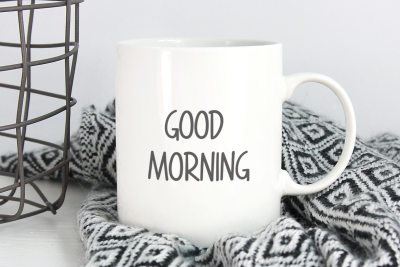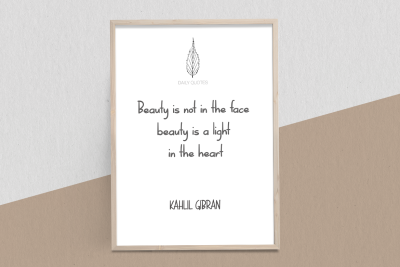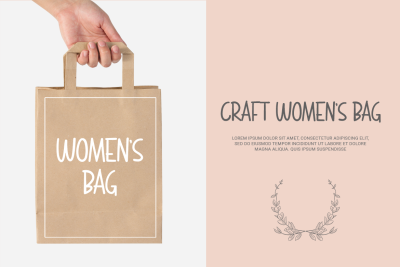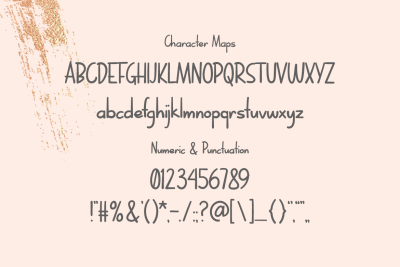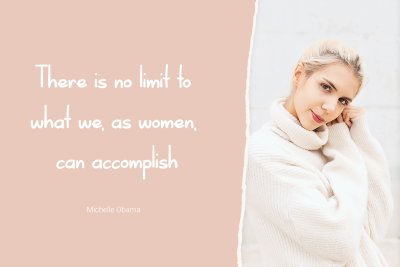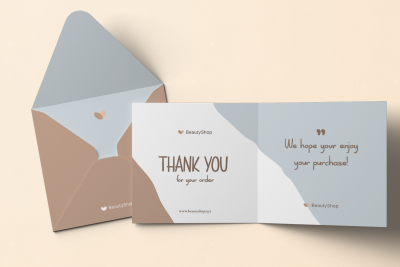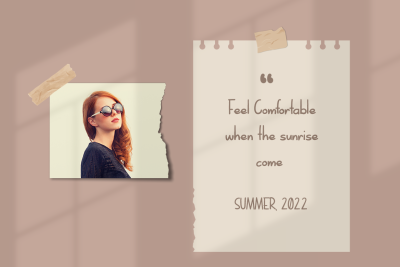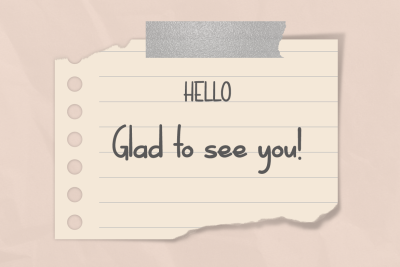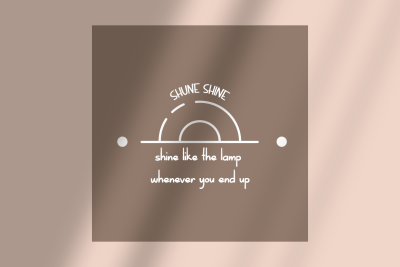
Handwriting Font School Note is a fun, playful, and casual handwritten font. It brings a natural and friendly feel to any design. Inspired by the neat yet informal look of school notes, this font captures nostalgia while also maintaining a modern and stylish appeal. With slightly irregular strokes and handwritten texture, School Note exudes warmth and personality. Therefore, it’s an excellent choice for those seeking a relaxed and approachable aesthetic.
The rounded edges and organic letterforms create a handwritten effect that mimics natural pen strokes. Whether designing for educational materials, scrapbooking, or crafting projects, this font adds a personal and handmade touch. Moreover, its legibility ensures it works well in digital and print formats, making it a versatile addition to any font collection. If you want to infuse authenticity and charm into your projects, then Handwriting Font School Note is a great option.
Handwriting Font School Note Suitable For
Handwriting Font School Note is an excellent choice for creatives, educators, and designers who want a handwritten touch in their work. This font is particularly well-suited for:
- Teachers and Educators โ Ideal for worksheets, lesson plans, and classroom materials to create an engaging and student-friendly look.
- Students and Note-Takers โ Perfect for personalized study notes, planners, and school projects with a fun handwritten aesthetic.
- Scrapbookers and DIY Crafters โ Great for journaling, card-making, and adding a handmade touch to crafts.
- Childrenโs Book Authors and Illustrators โ Suitable for storybooks, kids’ activity sheets, and playful typography in children’s content.
- Social Media Creators โ Enhances Instagram posts, YouTube thumbnails, and Pinterest graphics with a casual and inviting feel.
- Small Business Owners โ Works well for branding materials, product packaging, and promotional content that need a friendly and personal touch.
As a result, School Note combines fun and authenticity, making it a fantastic choice for those who love organic, handmade typography. Whether designing for education, crafting, or branding, this font delivers a delightful and natural feel. Ultimately, it ensures your projects remain inviting and expressive.